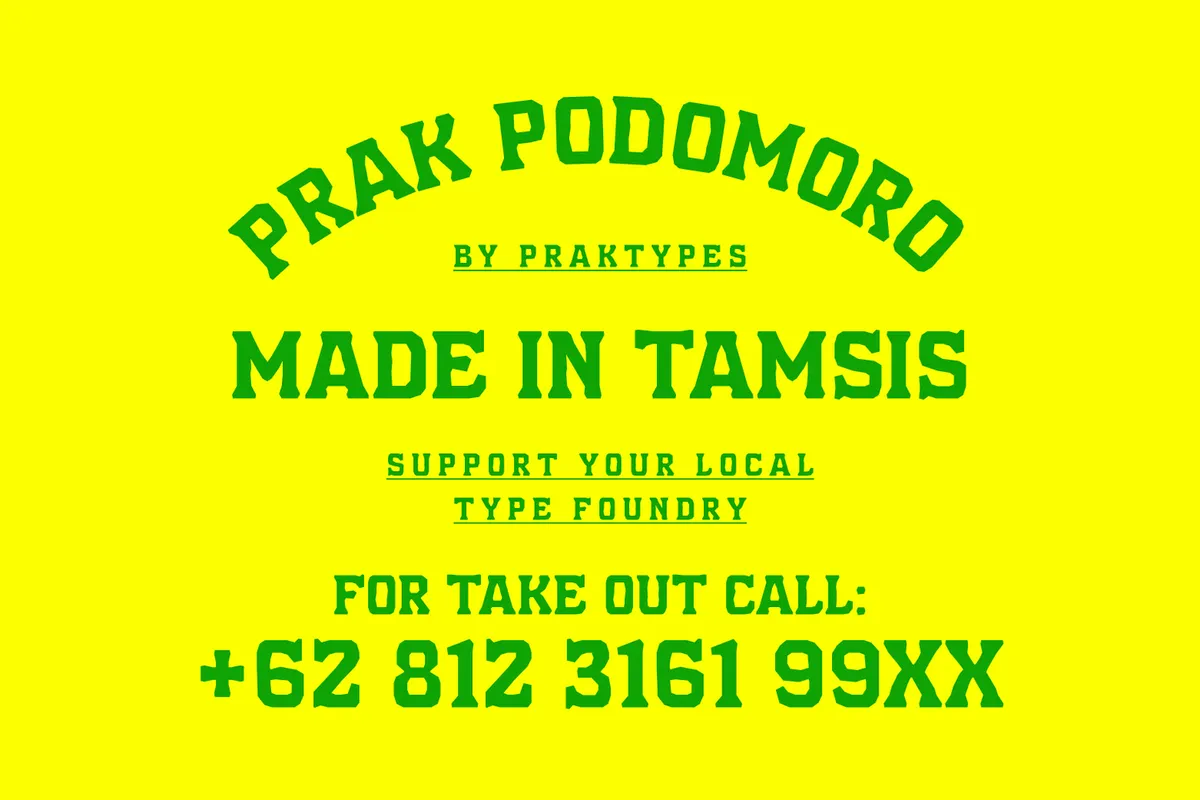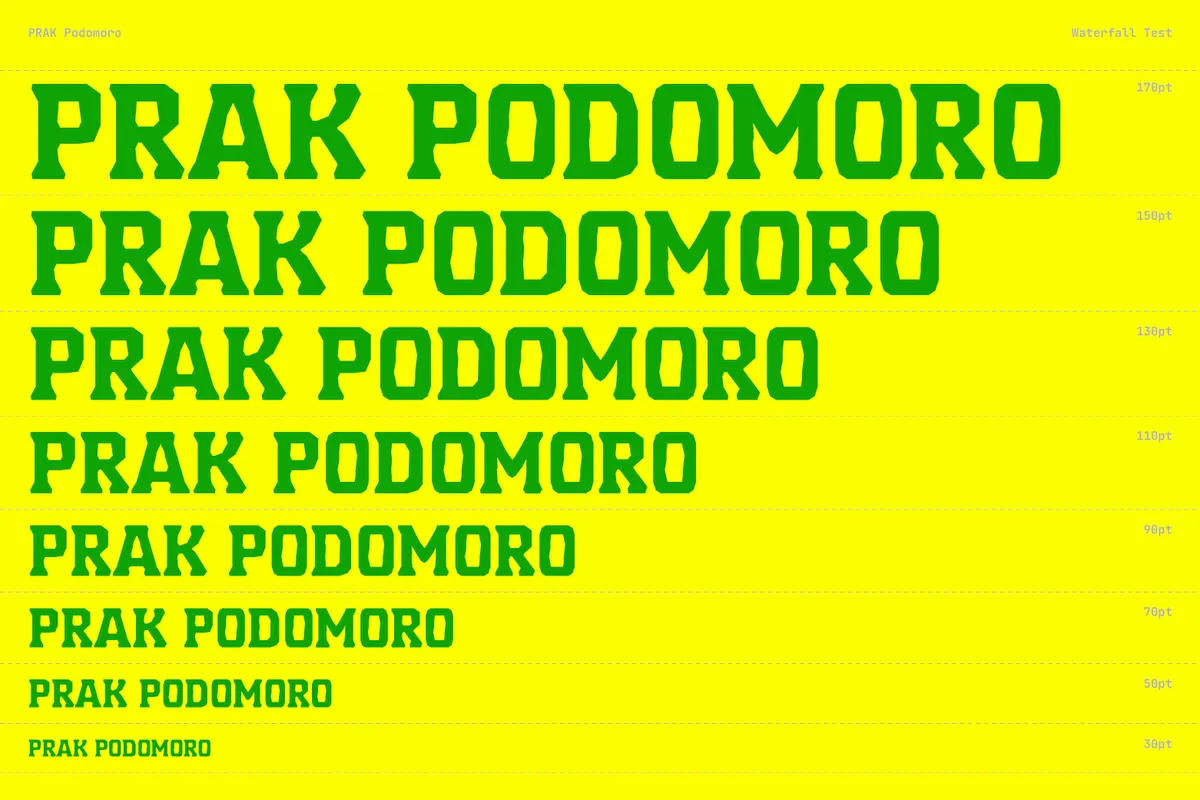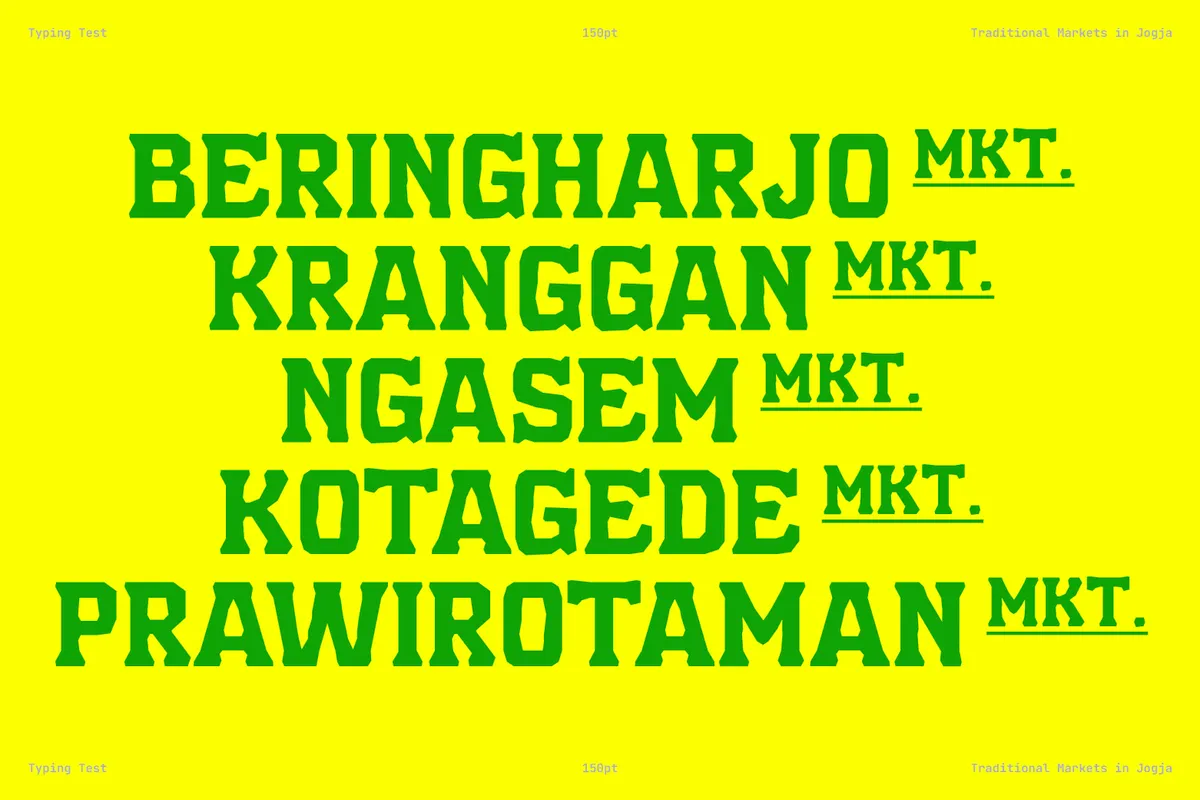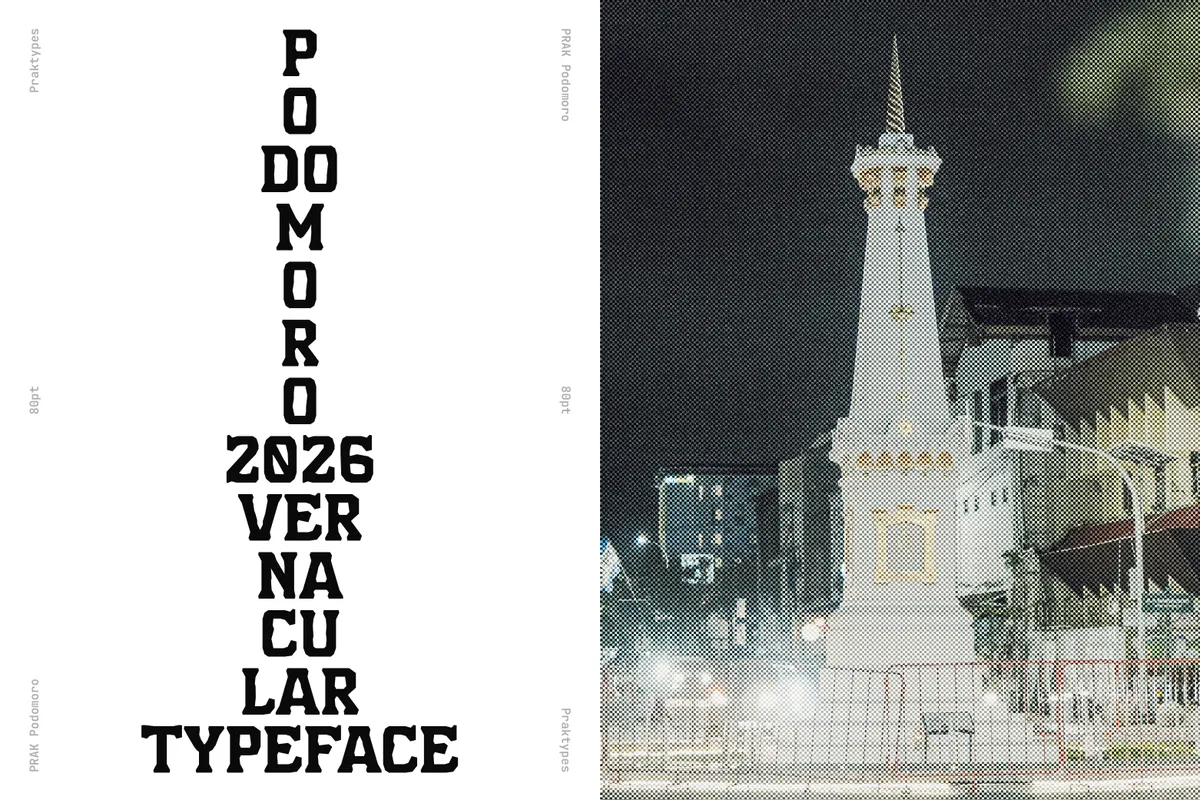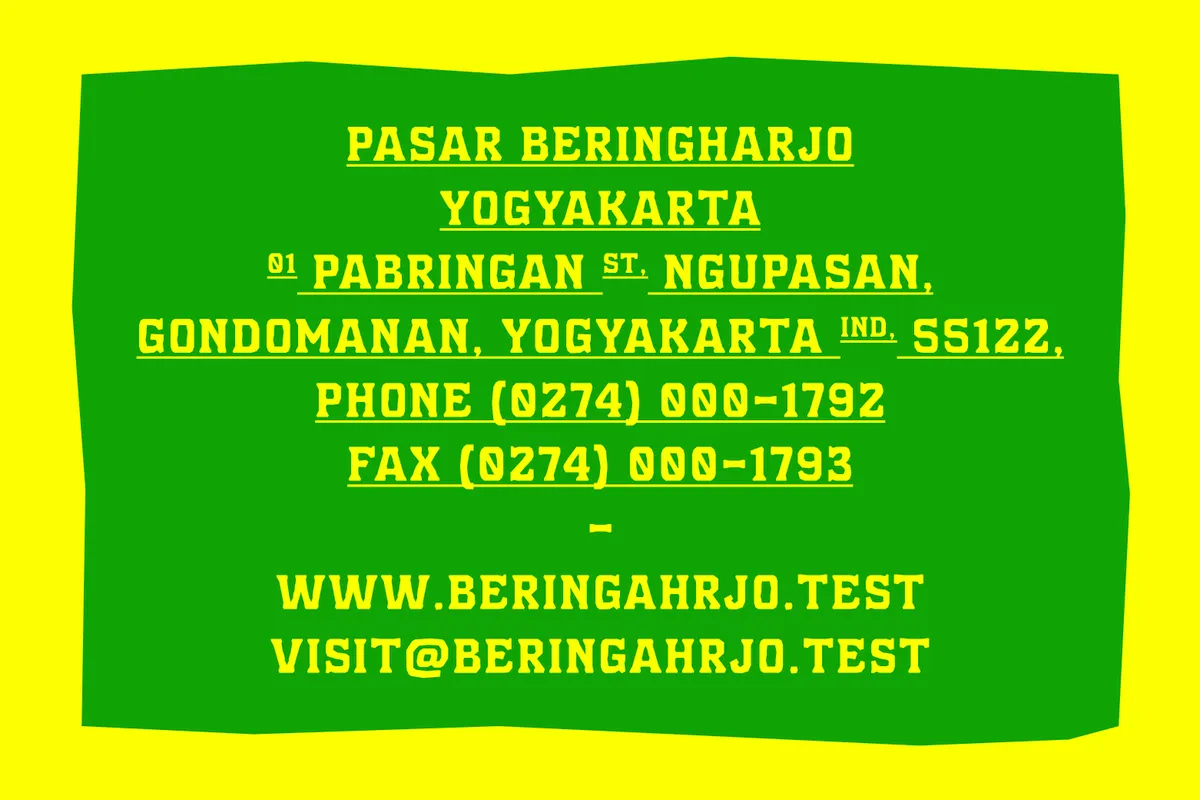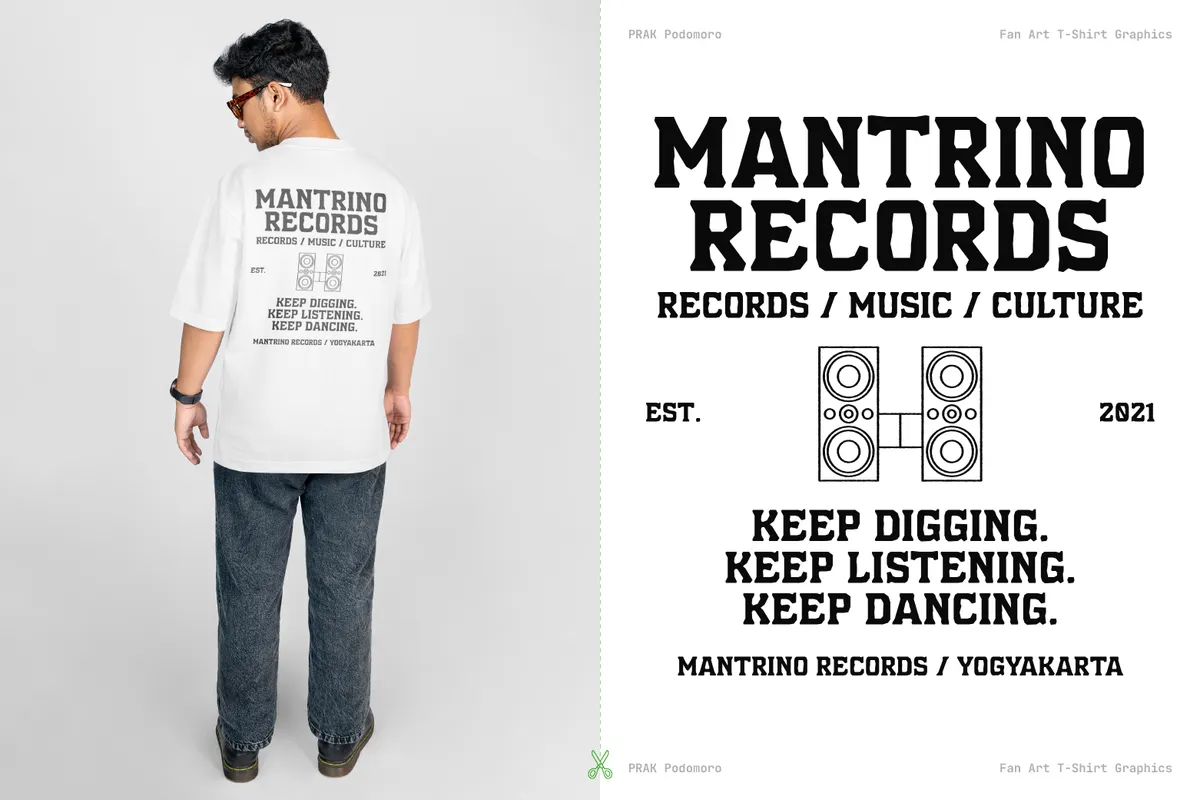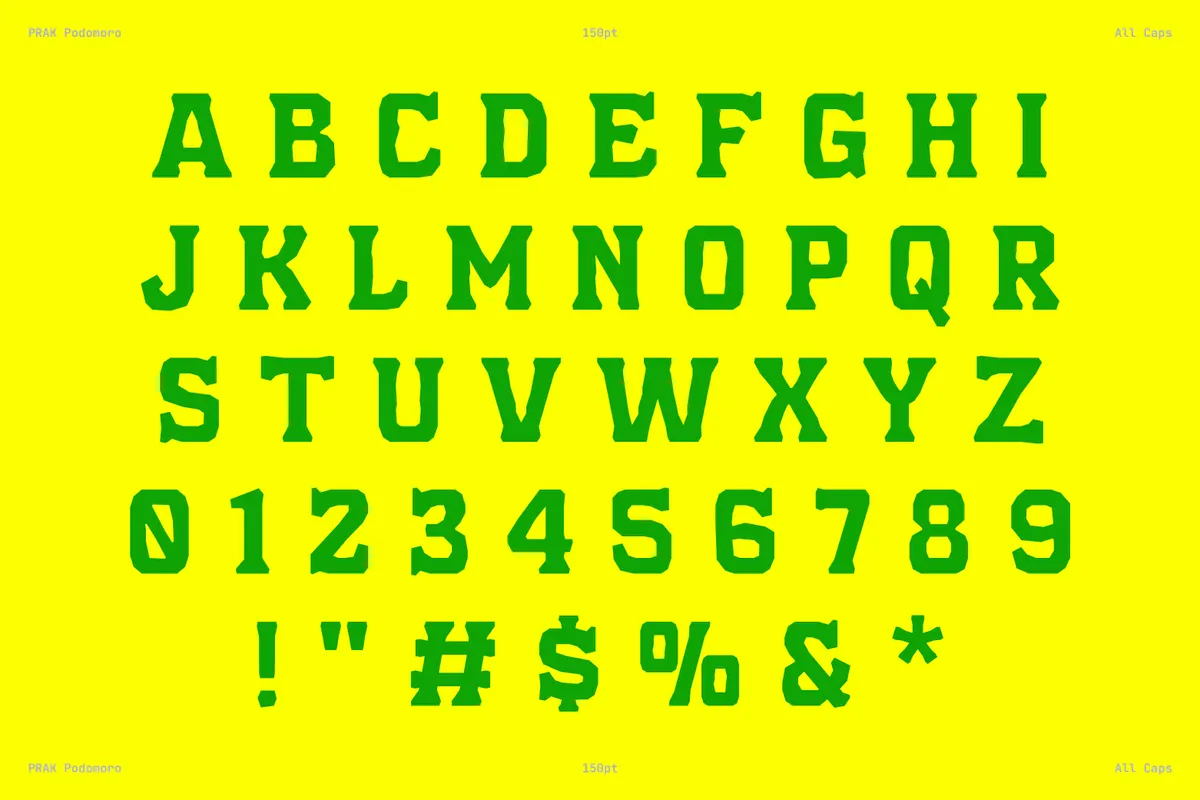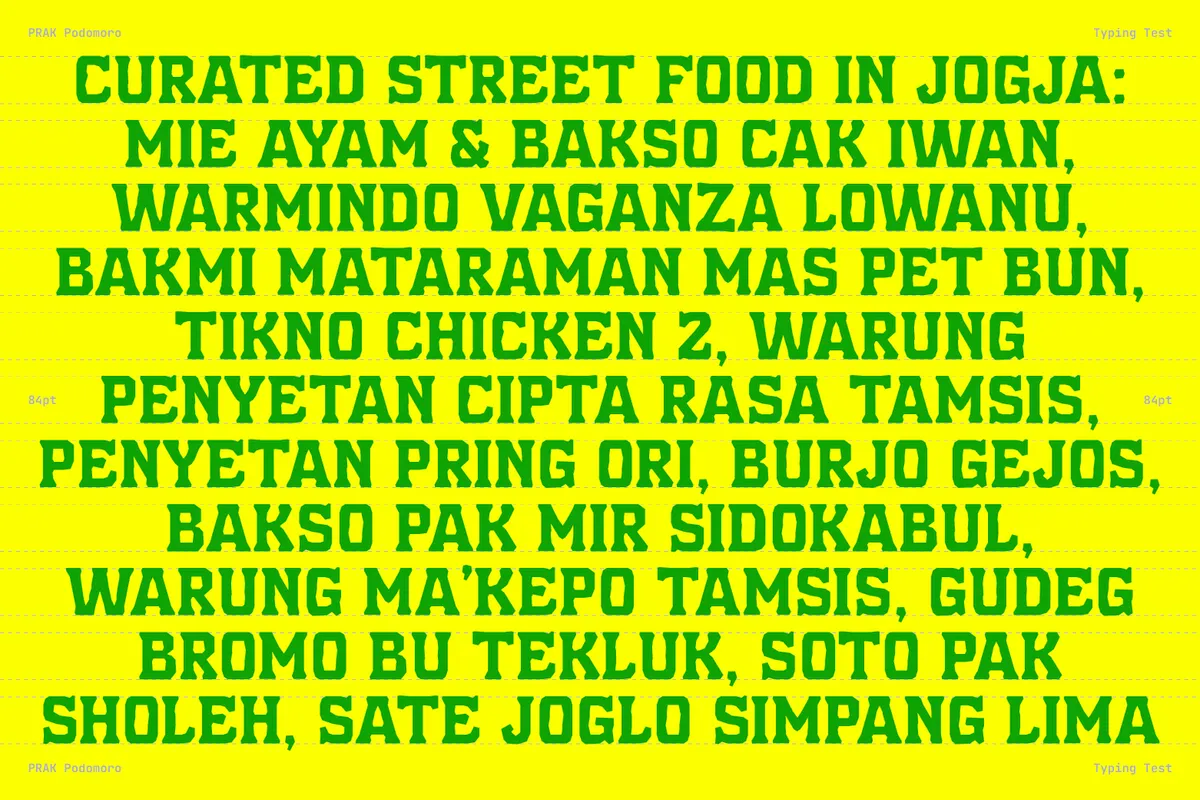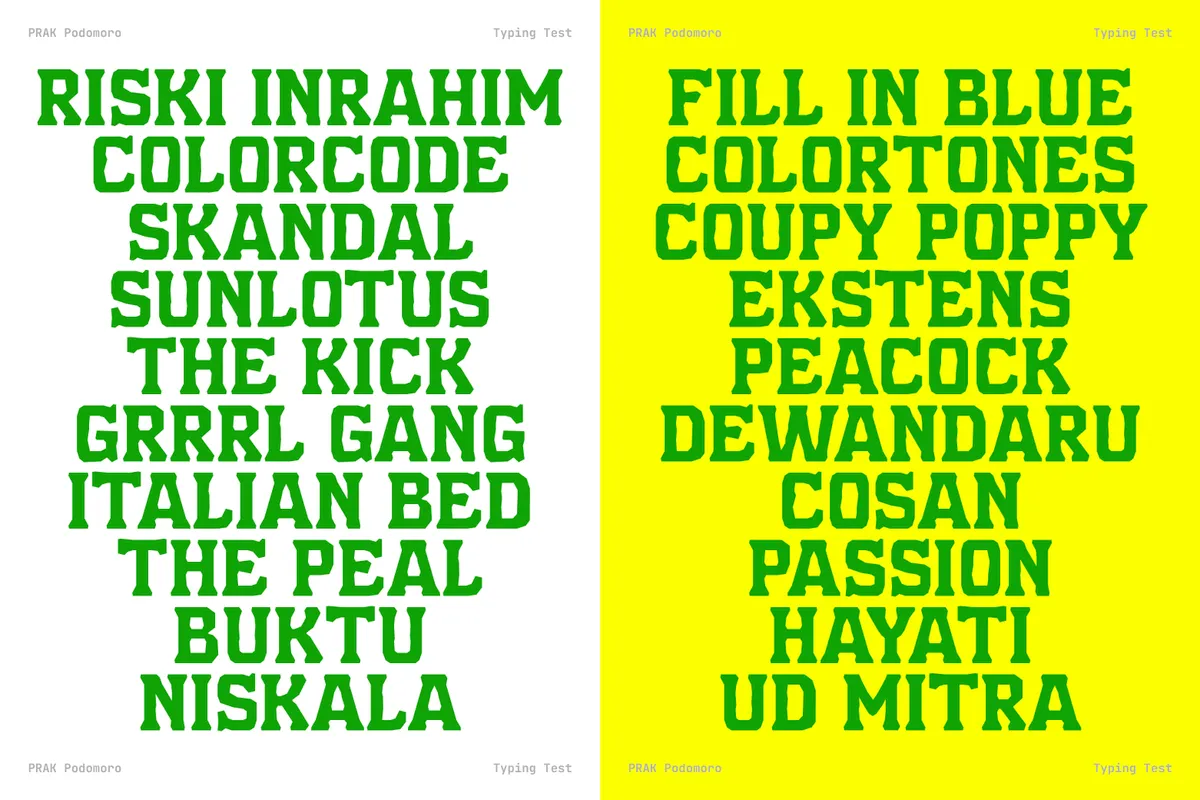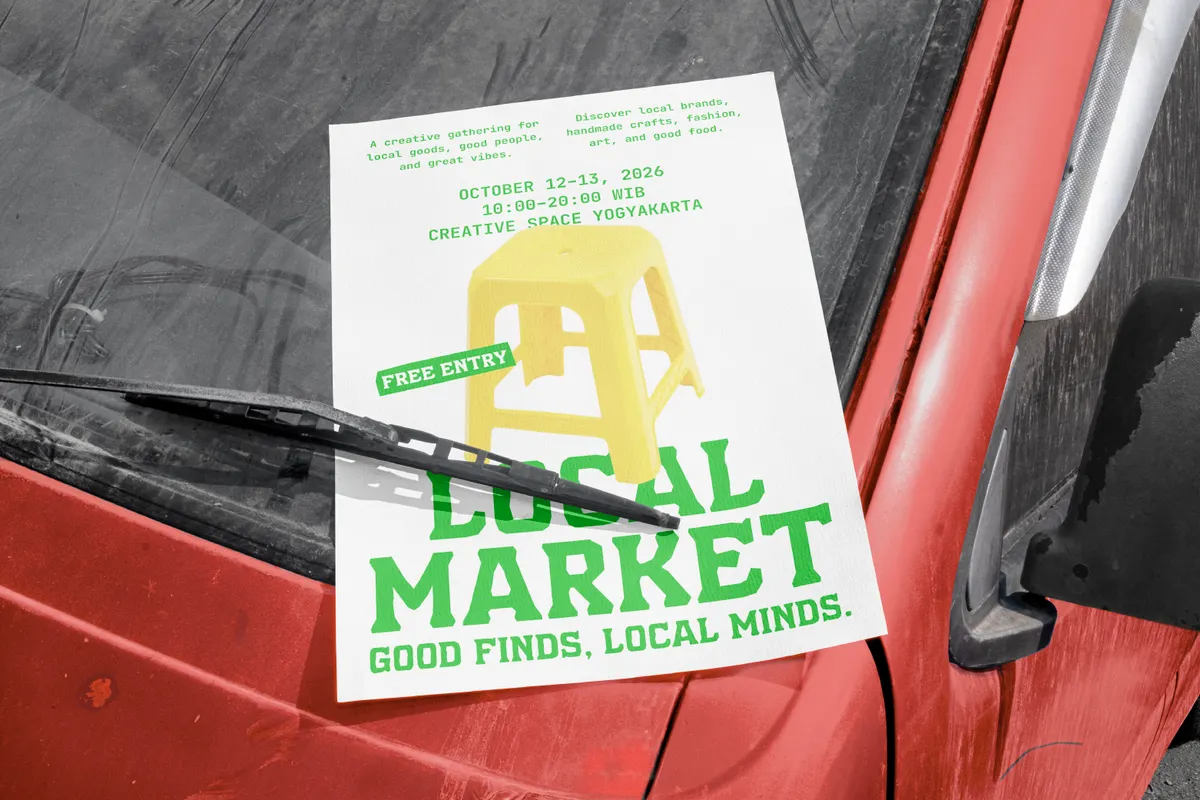
PRAK Podomoro - Hand-Cut Display Font
PRAK Podomoro
PRAK Podomoro builds bold, angular capitals with a raw, hand-cut edge, closer to market signage at Beringharjo than a clean geometric display face. Lowercase keys mirror the same capital shapes, keeping the whole set a single all-caps voice. Every letter carries a jittered alternate, and fifteen letters swap into full market-cart and vendor icons instead, all reachable through the OpenType panel.
Use it for street food branding, market signage, streetwear graphics, band merch, posters, and packaging that wants a raw, hand-cut edge.
- All caps display style;
- Numerals, punctuation & symbols;
- 5 ligatures, stylistic alternates on every character plus 15 dingbat icons, fractions, superscript figures;